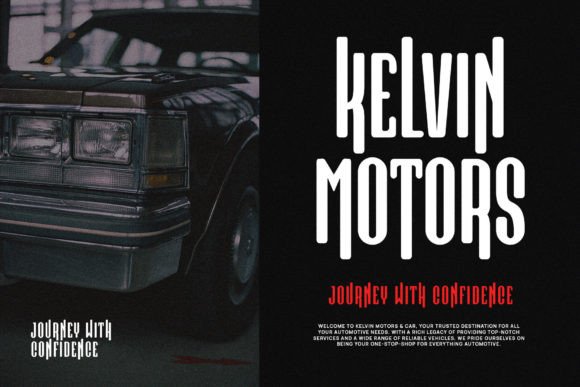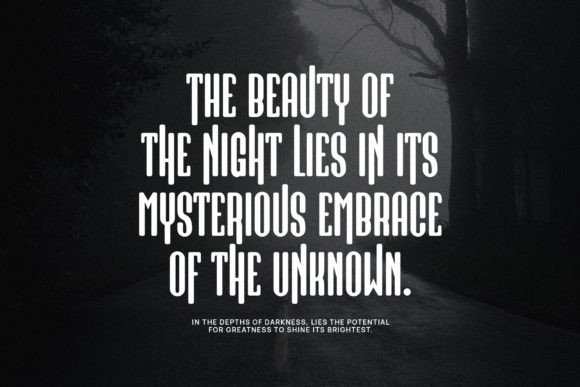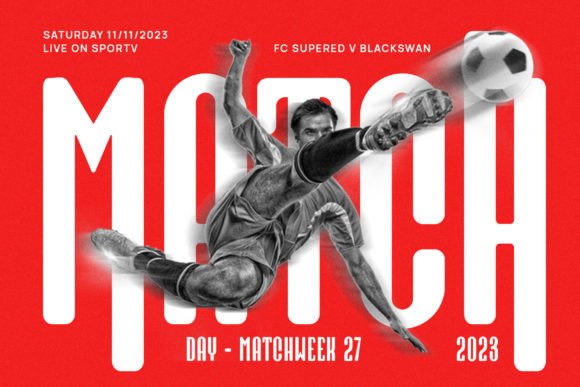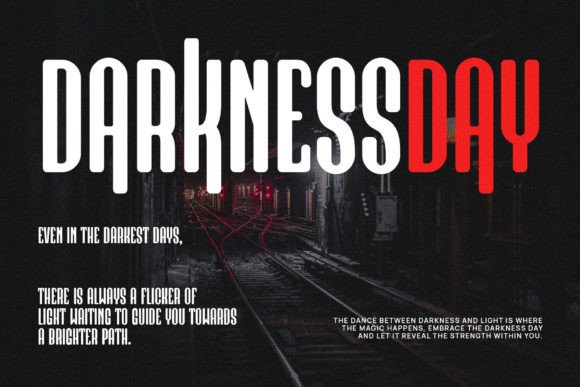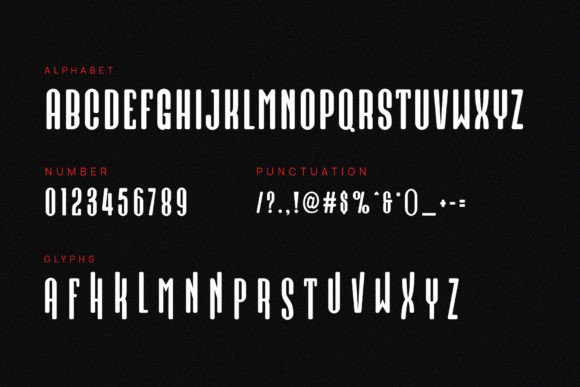
Discover the Elegance of Cairne Font: A Symphony of Symmetry and Minimalism
In the vast universe of typography, there exists a font that stands out for its unique blend of symmetry, elegance, and minimalism. Welcome to the world of Cairne Font, a typeface that has captured the hearts of designers and crafters alike with its distinctive rhythm and versatile appeal. In this article, we’ll delve into the intricacies of Cairne Font, exploring its design, features, and the myriad of creative possibilities it offers.
A Unique Blend of Inspirations
Cairne Font is the result of a meticulous fusion of different sources of inspiration, culminating in a typeface that exudes balance and harmony. The creator(s) of Cairne Font have masterfully blended various design elements to craft a font that is not only visually appealing but also highly functional. This symphony of design ensures that Cairne Font stands out in any medium, whether it’s digital or print.
Precision and Elegance in Design
One of the hallmark features of Cairne Font is its precisely adjusted proportions. The designer(s) have paid close attention to the subtle contours and contrasts, creating a font that embodies elegance without sacrificing minimalism. This careful consideration ensures that every glyph is not only aesthetically pleasing but also highly legible, making Cairne Font an excellent choice for a wide range of graphic design projects.
Cairne Font’s versatility is one of its most compelling attributes. Whether you’re working on brochures, videos, advertising branding, logos, magazines, layout designs, posters, post templates, games, or any other graphic design project, Cairne Font proves to be an invaluable asset. Its balanced and symmetrical design ensures that it adapts seamlessly to various contexts, always delivering a professional and sophisticated look.
PUA Encoding: Unlocking Creative Potential
Cairne Font comes with PUA (Private Use Area) encoding, a feature that significantly enhances its usability. PUA encoding allows designers to access all the amazing glyphs and ligatures easily, unlocking a world of creative possibilities. This means you can experiment with different stylistic variations and unique characters without any limitations, making your designs more distinctive and engaging.
The Designer’s Perspective: Why Cairne Font Stands Out
For designers and crafters, finding a font that meets all their needs can be a daunting task. Cairne Font, however, checks all the boxes. Its elegant and minimalist design makes it suitable for projects that require a touch of sophistication. Moreover, its symmetrical and balanced rhythm ensures that it can be used in both digital and print media, offering unparalleled flexibility.
Applications of Cairne Font
The applications of Cairne Font are vast and varied. Here are a few examples of how this versatile font can be used:
- Brochures and Magazines: Add a touch of elegance to your publications with Cairne Font.
- Branding and Advertising: Create memorable brand identities and advertisements with this distinctive typeface.
- Logos and Icons: Design unique and recognizable logos and icons using Cairne Font.
- Posters and Flyers: Stand out with eye-catching posters and flyers featuring Cairne Font.
- Digital Media: Enhance your website, videos, and social media content with the modern appeal of Cairne Font.
Cairne Font is more than just a typeface; it’s a design solution that offers a perfect blend of symmetry, elegance, and minimalism. Its unique mix of inspirations, precise design, and PUA encoding make it an invaluable tool for designers and crafters. Whether you’re working on a commercial project or a personal endeavor, Cairne Font is sure to elevate your designs to new heights. Discover the creative possibilities with Cairne Font today and experience the difference it can make in your work.